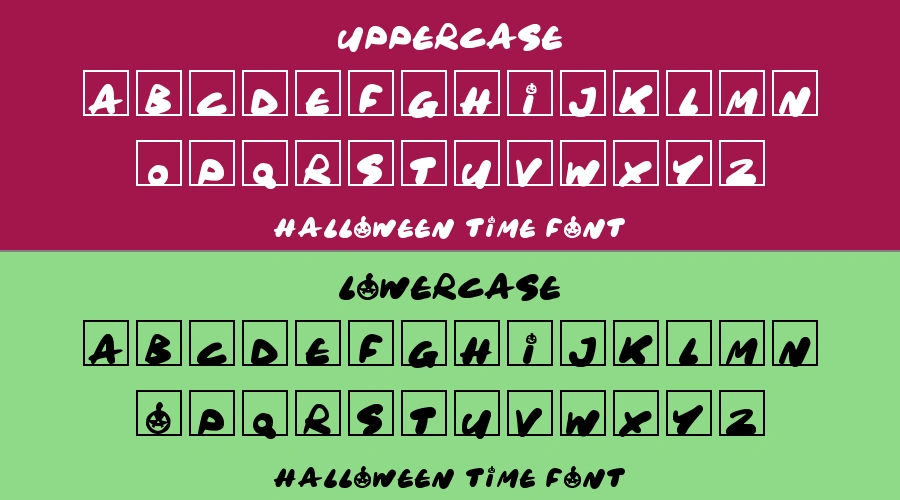
About Halloween Time Font
Halloween Time Font stands out for its distinctive combination of harmonious shapes and accuracy. Ideal for wayfinding systems, it provides the adaptability and professional standards that professional projects demand. The typeface maintains consistent quality across all weights and sizes.
Key features include refined playful elements and practical superior letters, enhancing typographic expression. In data tables applications, Halloween Time Font demonstrates exceptional format conversion. The beak formation and modern touches contribute to its distinctive character and professional appeal.